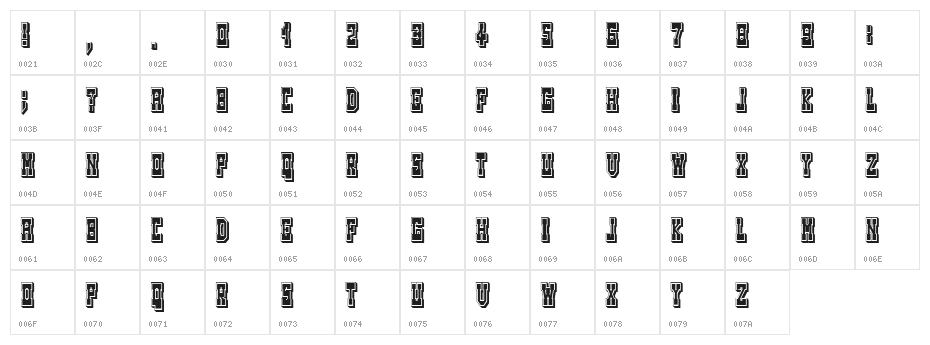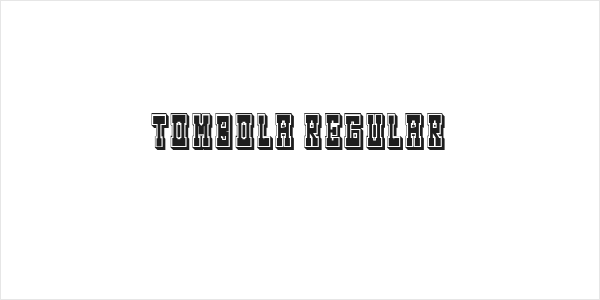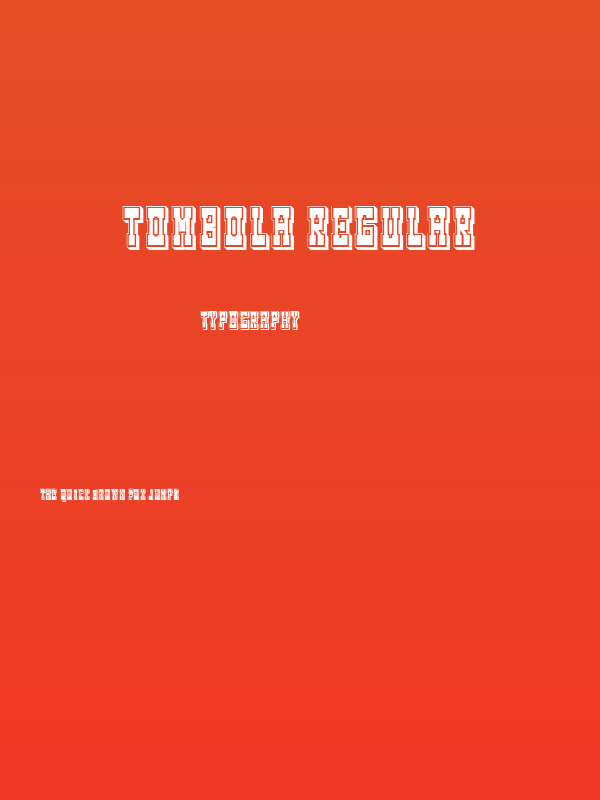
Tombola Regular Font
Tombola Regular Description
This font features a bold, decorative style with a strong presence. Each character is outlined with a thick border, creating a striking 3D effect that gives the text a sense of depth and dimension. The letters are blocky and geometric, with sharp angles and clean lines that contribute to a modern yet vintage aesthetic. The uppercase and lowercase letters maintain a consistent style, ensuring uniformity across different text sizes. The numbers and special characters are designed to match the boldness of the alphabet, making them suitable for attention-grabbing displays. The font's unique style makes it ideal for projects that require a standout headline or title.
| Overall Style | Modern, Vintage |
| Proposed Projects | Ideal for posters, logos, headlines, and any design needing a bold, eye-catching typeface. |